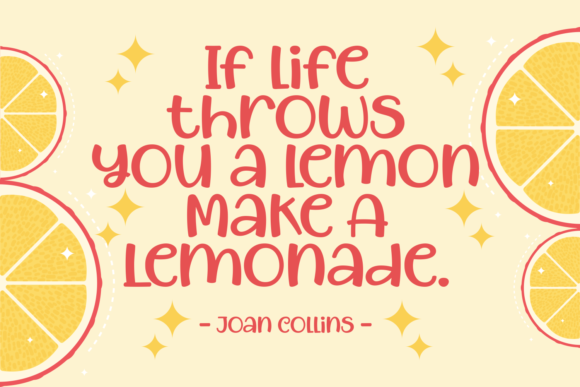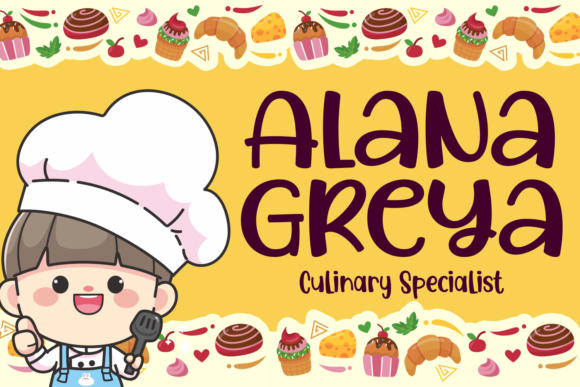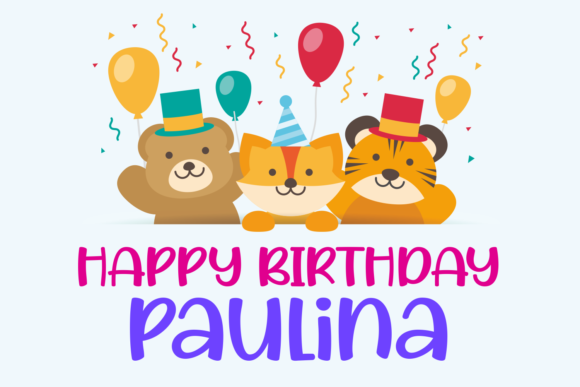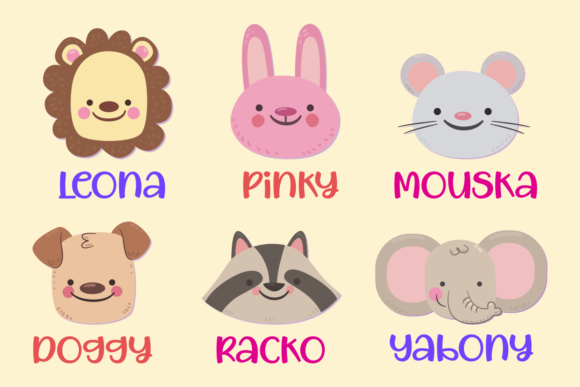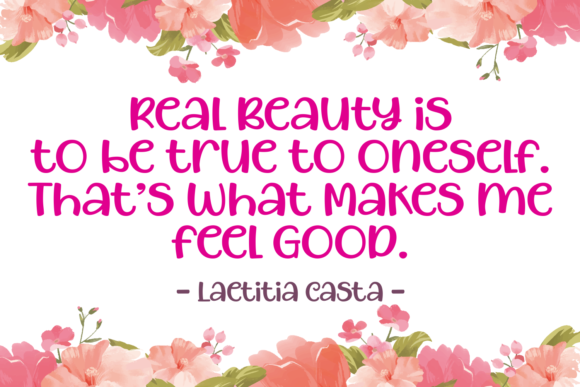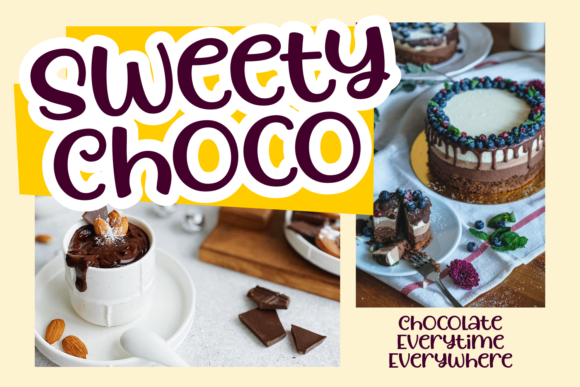
The Beauty Sunkiss Font: A Cheerful Game-Changer for Your Designs
I’ll never forget the time I was working on a project for a children’s party invitation. I had the design concept nailed, but something was missing – the perfect font. I scrolled through my font library, but nothing seemed quite right. That’s when I stumbled upon the Beauty Sunkiss font. Its charming, dancing characters instantly captured the playful vibe I was going for. I knew right then and there that I had found the perfect fit.
- ✨ Unique Character Style: The Beauty Sunkiss font features characters that seem to dance along the baseline, adding a playful touch to any design.
- ✅ Highly Versatile: This font is perfect for a wide range of projects, from party invitations and children’s books to branding and advertising materials.
- 💫 Excellent for Display Text: Beauty Sunkiss truly shines when used for display text, headings, or titles, making it a great addition to any designer’s toolkit.
While the Beauty Sunkiss font is incredibly charming, there are a few things to keep in mind:
- 🤔 Legibility at Small Sizes: Due to its playful nature, the font may not be as legible at very small sizes. It’s best used for display text or larger body text.
- ⚠️ Limited Formality: The Beauty Sunkiss font is quite playful, which means it might not be the best choice for more formal or professional projects.
The Story Behind Beauty Sunkiss
The Beauty Sunkiss font was designed with one goal in mind: to create a playful, cheerful font that would bring joy to designers and their projects. The designer, inspired by the carefree spirit of childhood, crafted a font that would evoke feelings of happiness and creativity. And with its charming characters and dancing baseline, Beauty Sunkiss is sure to do just that.
Q: What type of projects is Beauty Sunkiss best suited for?
A: Beauty Sunkiss is perfect for projects that require a playful, cheerful touch, such as children’s party invitations, kids’ books, branding materials, and advertising.
Q: Is Beauty Sunkiss a difficult font to read?
A: While Beauty Sunkiss is a playful font, it can be a bit challenging to read at very small sizes. It’s best used for display text or larger body text.